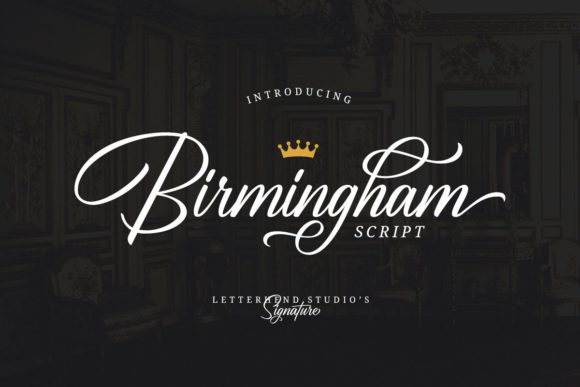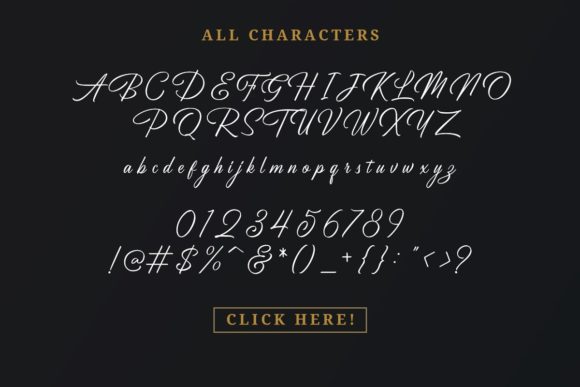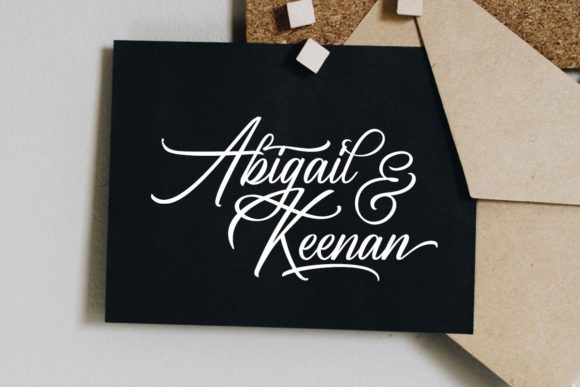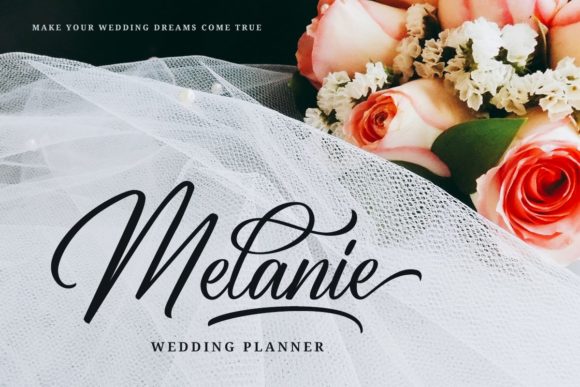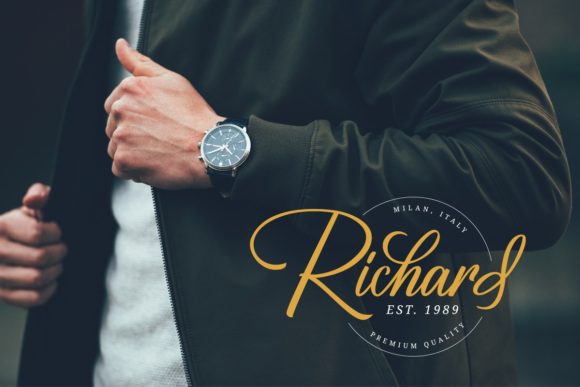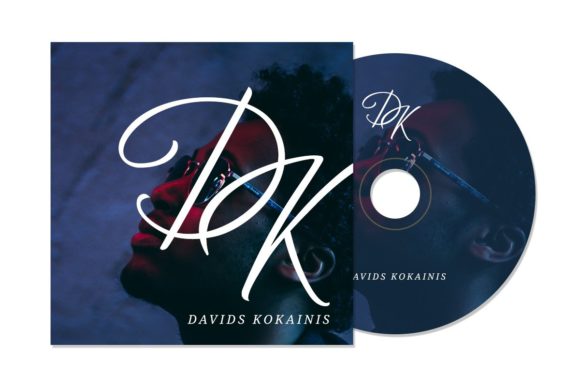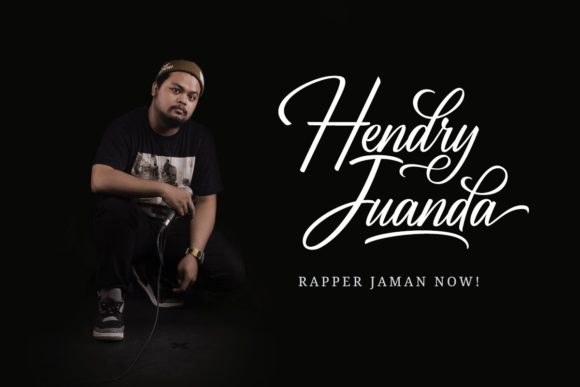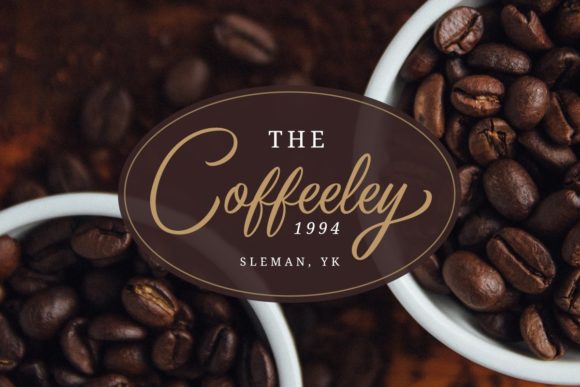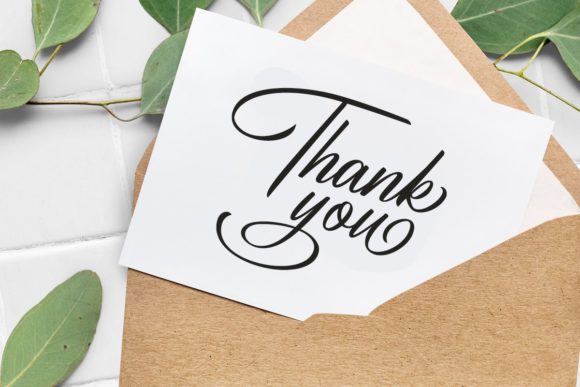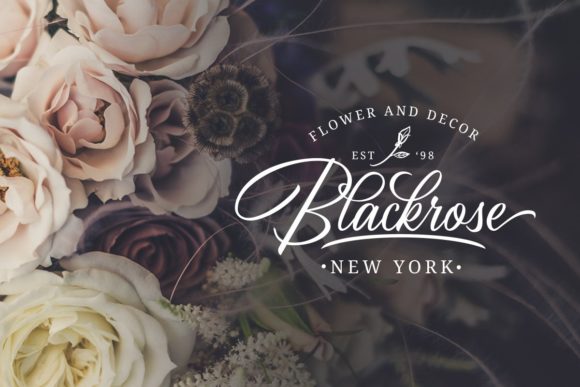
HomeScript FontsBirmingham Font Script Fonts Birmingham Font FacebookXPinterestWhatsApp Birmingham Font Poster 2 Birmingham Font Poster 3 Birmingham Font Poster 4 Birmingham Font Poster 5 Birmingham Font Poster 6 Birmingham Font Poster 7 Birmingham Font Poster 8 Birmingham Font Poster 9 Birmingham Font Poster 10 About Birmingham Font Birmingham is a classy script font with a unique style. It can add a personal touch to any crafting project! DOWNLOAD NOW People also explored Romantic Heart Font Bandice Font Viollita Font Ghost Zone Font King City Font Meloriac Steady Stream Font Feeling Feisty Font Lostmytalk Font 280 0 TagsBirmingham Font Previous articleCallonsky FontNext articleKanzalea Font LEAVE A REPLY Cancel reply Comment: Please enter your comment! Name:* Please enter your name here Email:* You have entered an incorrect email address! Please enter your email address here Website: Save my name, email, and website in this browser for the next time I comment. Personal Use Free Starborn Font Personal Use Free Read more about this font Alnair Star Personal Use Free Read more about this font Hallo Betty Personal Use Free Read more about this font Stone Garden Personal Use Free Read more about this font BLOG To increase your work productivity, choose the most readable fonts. In today's fast-paced work environment, where digital communication and information consumption are integral to our daily routines, the choice of fonts can significantly impact... Free Fonts Risk: Why Free Fonts Can Be Dangerous for Designers Transform Your Website: Elevate Your Typography with 7 Best Web Font Generators Best Fonts for T-Shirt Design – Top 2025 Picks